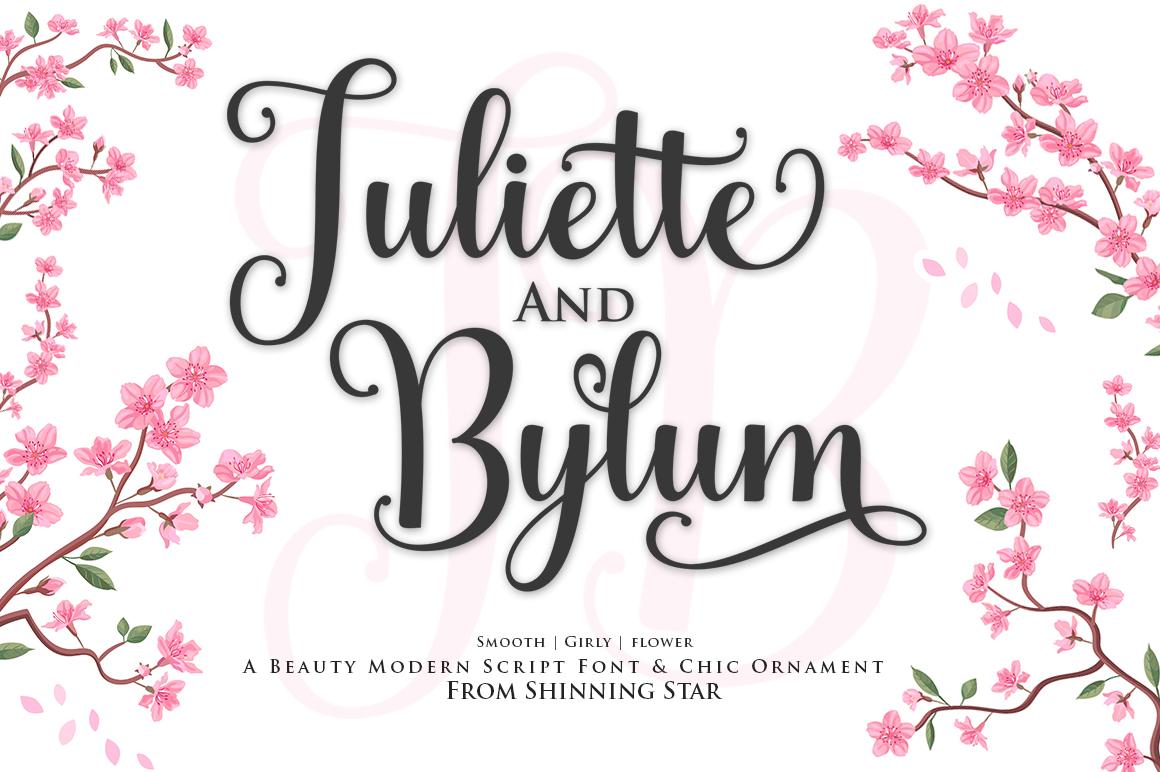
Juliette and Bylum Font Description
Juliette and Bylum is a lovely handwritten font. It is PUA encoded which means you can access all of the glyphs and swashes with ease! It maintains its classy calligraphic influences while feeling contemporary and fresh. Fall in love with this font and bring your projects to the highest levels!